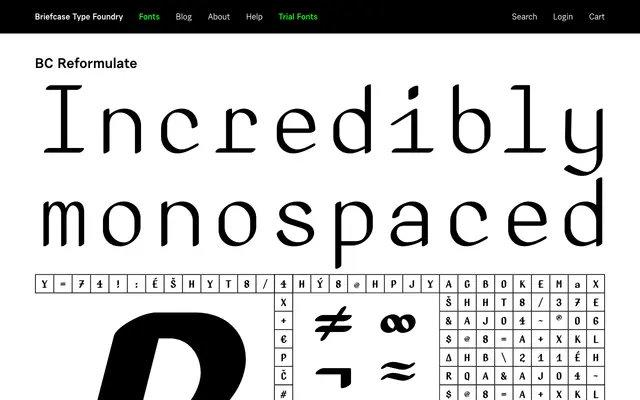
BC Reformulate
A contemporary sans-serif from Briefcase Type Foundry with limited detail available from the page.
BC Reformulate is released by Briefcase Type Foundry, a Czech foundry with a consistent output of professional display and text typefaces. Insufficient detail was available on the page to describe its specific design characteristics, weights or language coverage with confidence.
The name and foundry context suggest a contemporary geometric or rational sans-serif; classified accordingly given the sparse page content available.